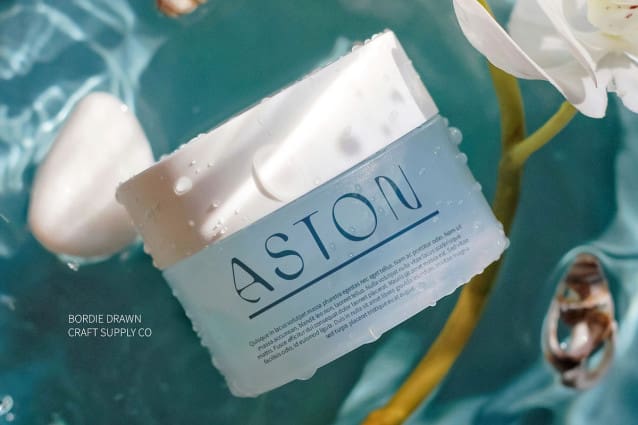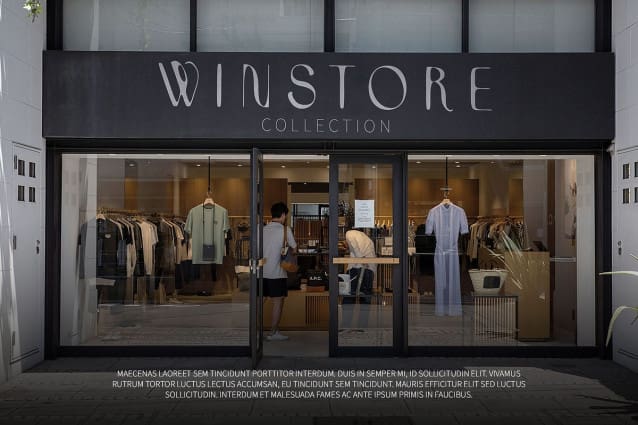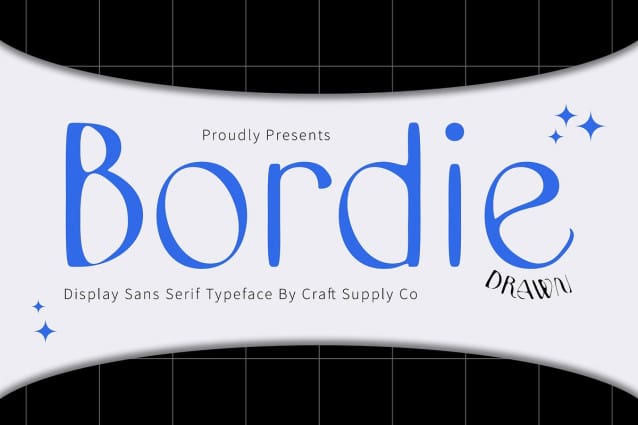
Bordie Drawn Font
Bordie Drawn Font is a modern sans-serif font characterized by its slender and graceful letterforms, exuding an air of elegance and refinement. The font’s clean lines and subtle curves create a sophisticated appearance that is both timeless and contemporary, making it a versatile choice for a wide range of design projects.
Creative and Personal Touch What sets Bordie Drawn apart is its drawn effect, which gives the impression of hand-drawn letters. This artistic detail adds a personal and creative touch to the font, imbuing it with a sense of craftsmanship and individuality. This feature makes Bordie Drawn particularly suited for designs that seek to convey a sense of uniqueness and artistry.
Perfect for High-End Branding The combination of elegant letterforms and a hand-drawn effect makes Bordie Drawn ideal for luxury product packaging, branding, and promotional materials. Its refined look and creative flair enhance the visual appeal of high-end brands, ensuring that your designs stand out with beauty and sophistication. Whether used in logos, product labels, or marketing campaigns, Bordie Drawn brings an element of elegance and creativity to any project.